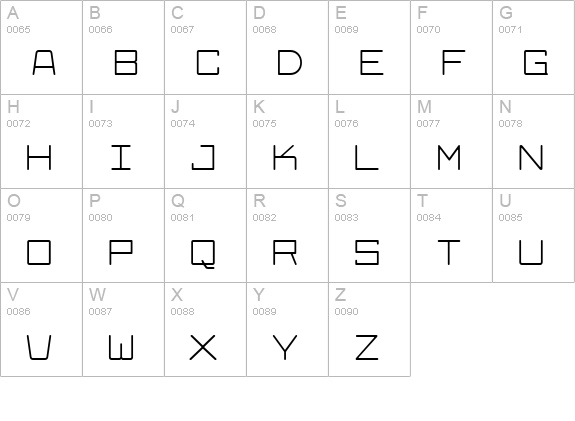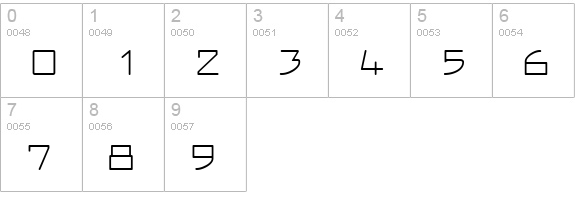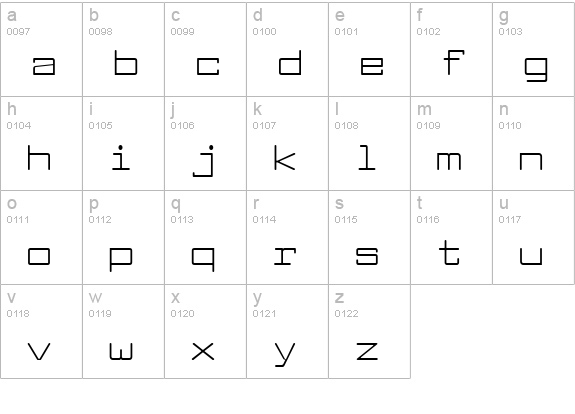
Larabiefont Extended is a distinctive, extended-width variant in the Larabiefont typeface family \xE2\x80\x94 well suited to design and typography projects.
Larabiefont Extended is a versatile and elegant font that adds a touch of sophistication to any design project. With its clean lines and modern style, this font is perfect for a wide range of applications, from branding to editorial design. The extended version of Larabiefont offers additional characters and glyphs, making it ideal for creating unique and eye-catching typography. The best part? Larabiefont Extended is completely free to download at FontsMarket.com. Whether you're a designer looking to elevate your work or a business owner in need of a fresh new font for your branding, Larabiefont Extended is sure to impress. Download it today and take your designs to the next level with this stunning and versatile typeface.